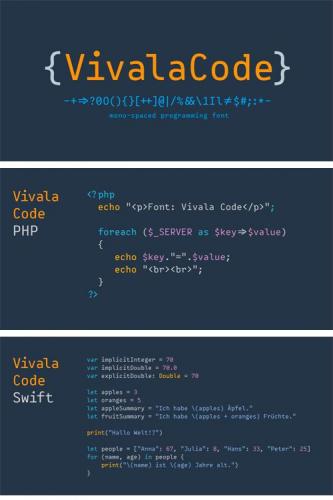
The mono-spaced Vivala Code is designed specifically for programming. Each day developers spend hours looking at a screen. Vivala Code is aligned to their needs. It h